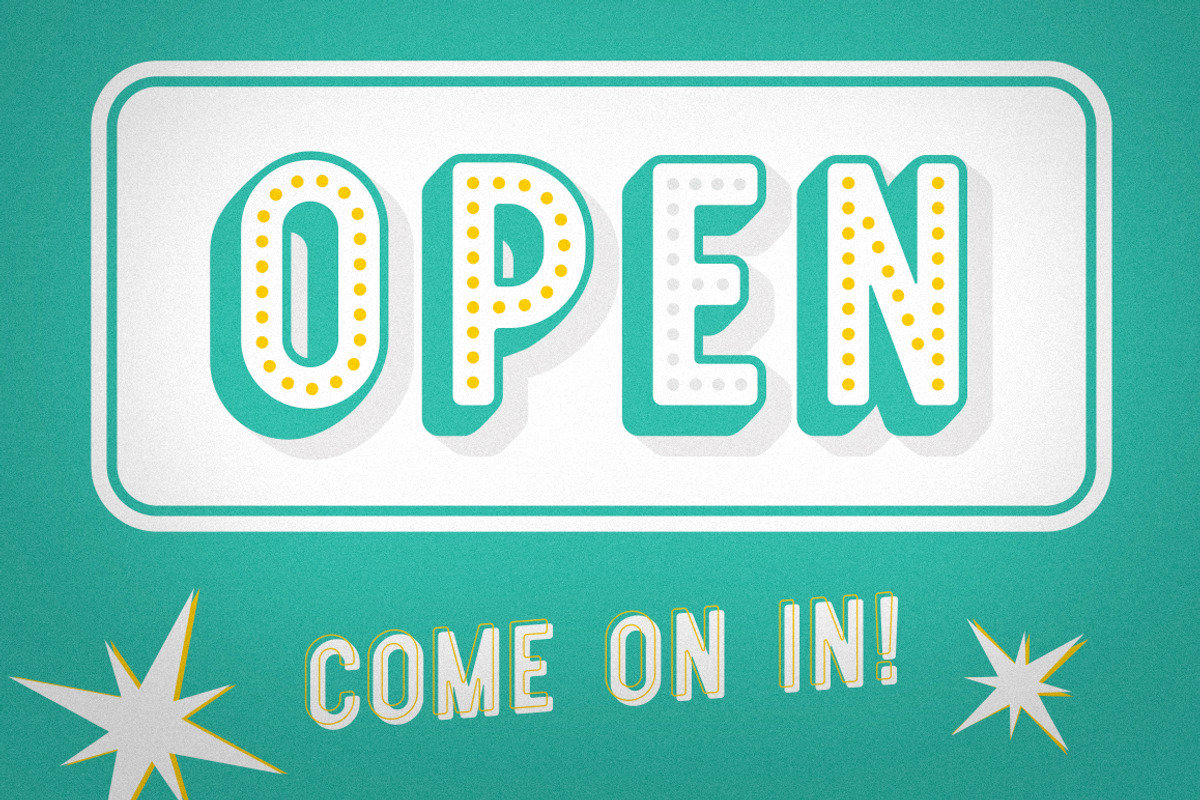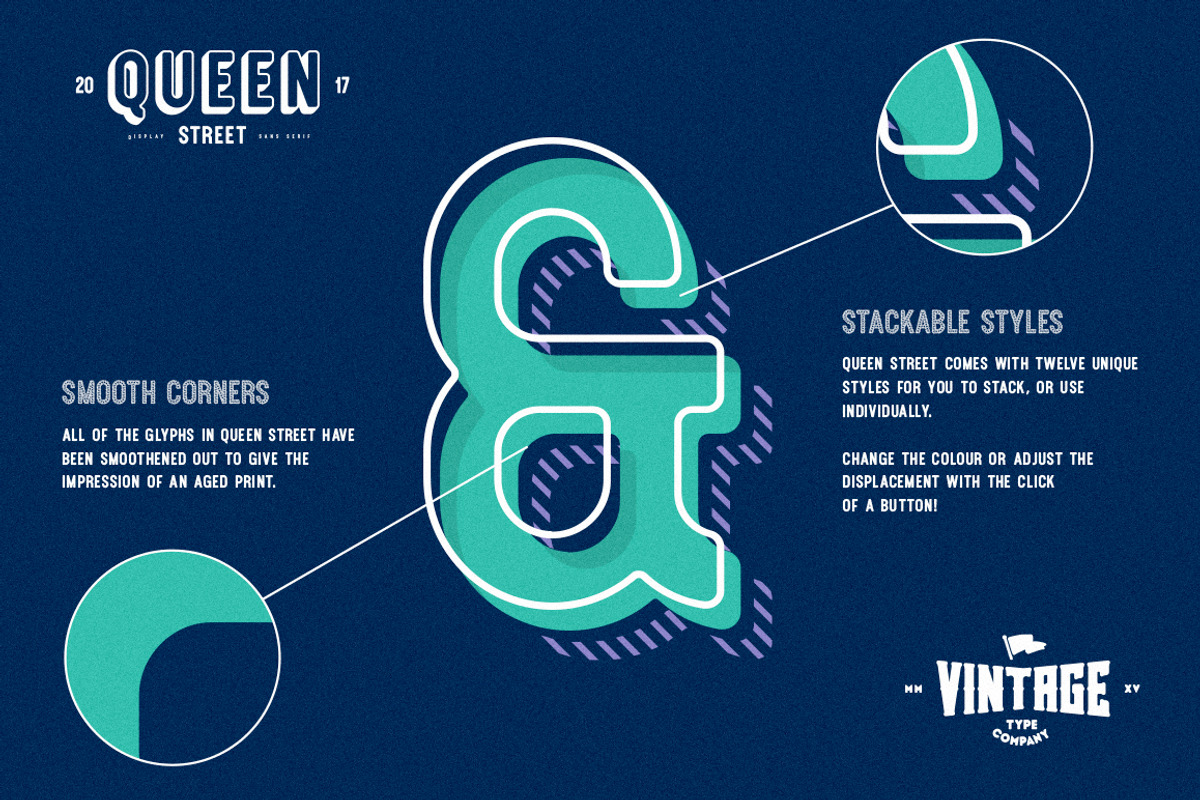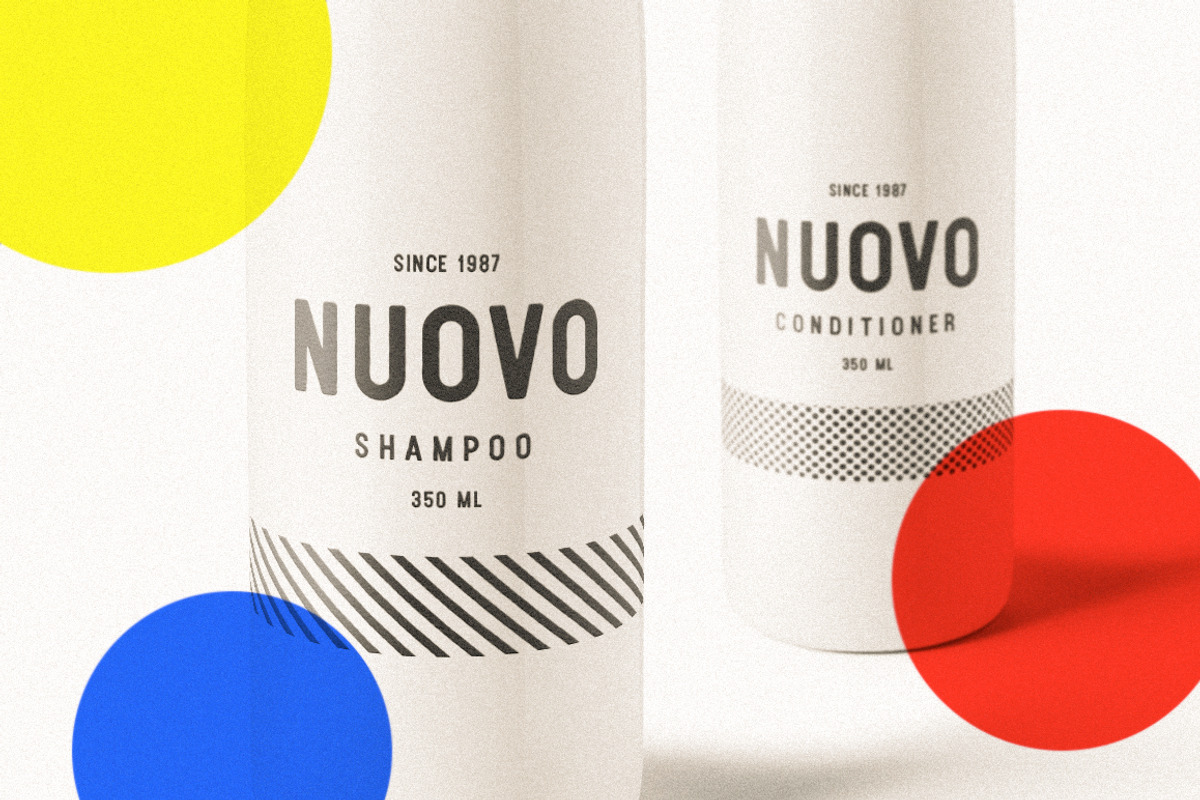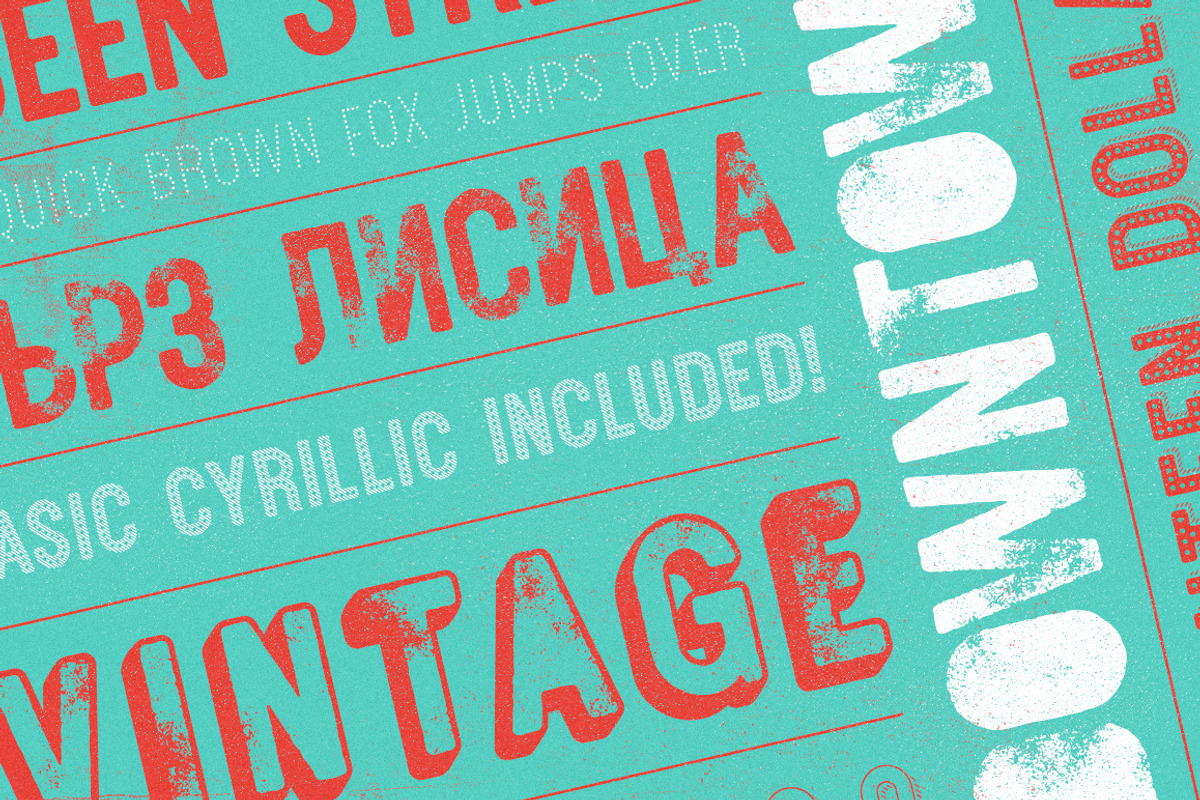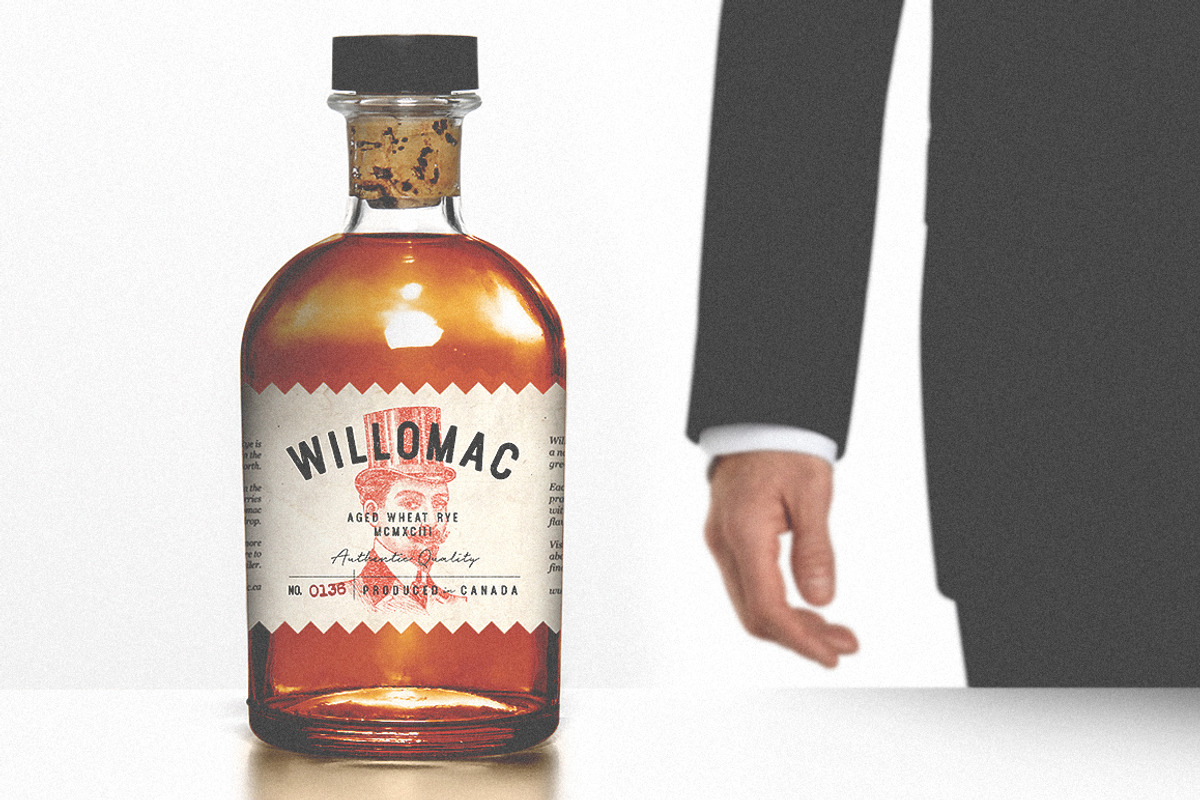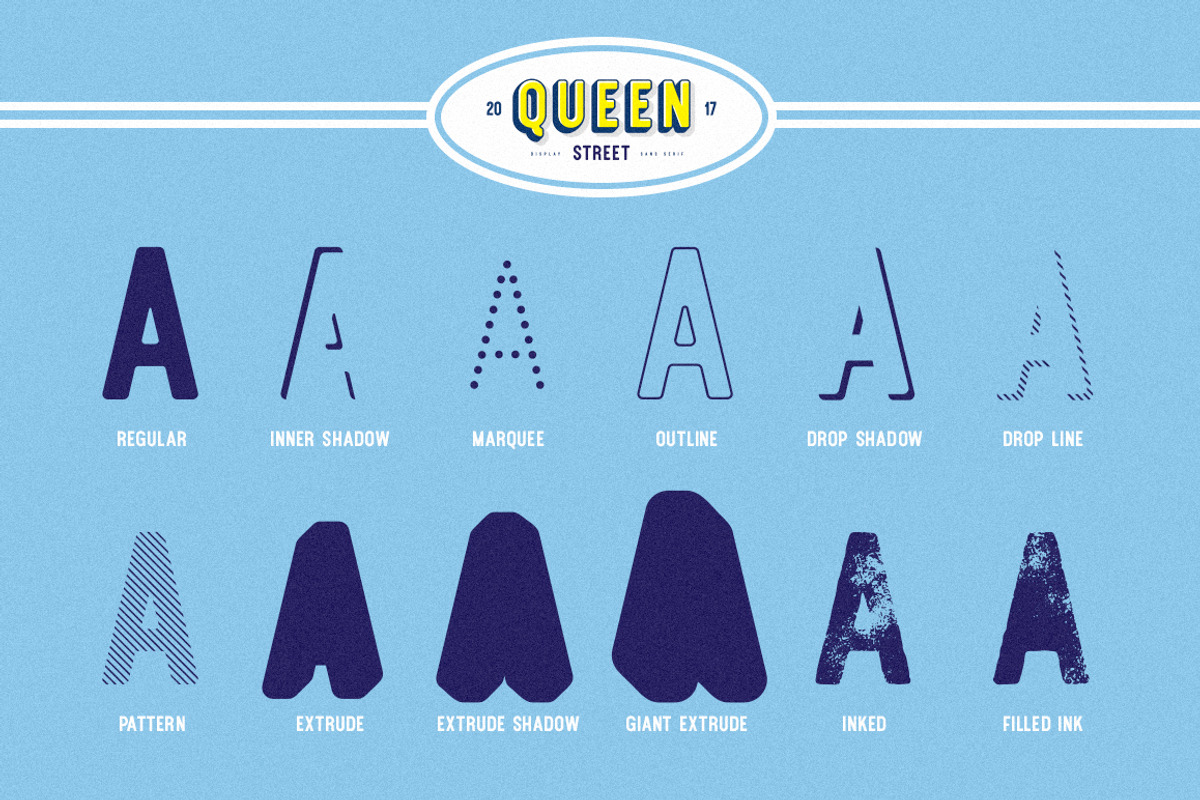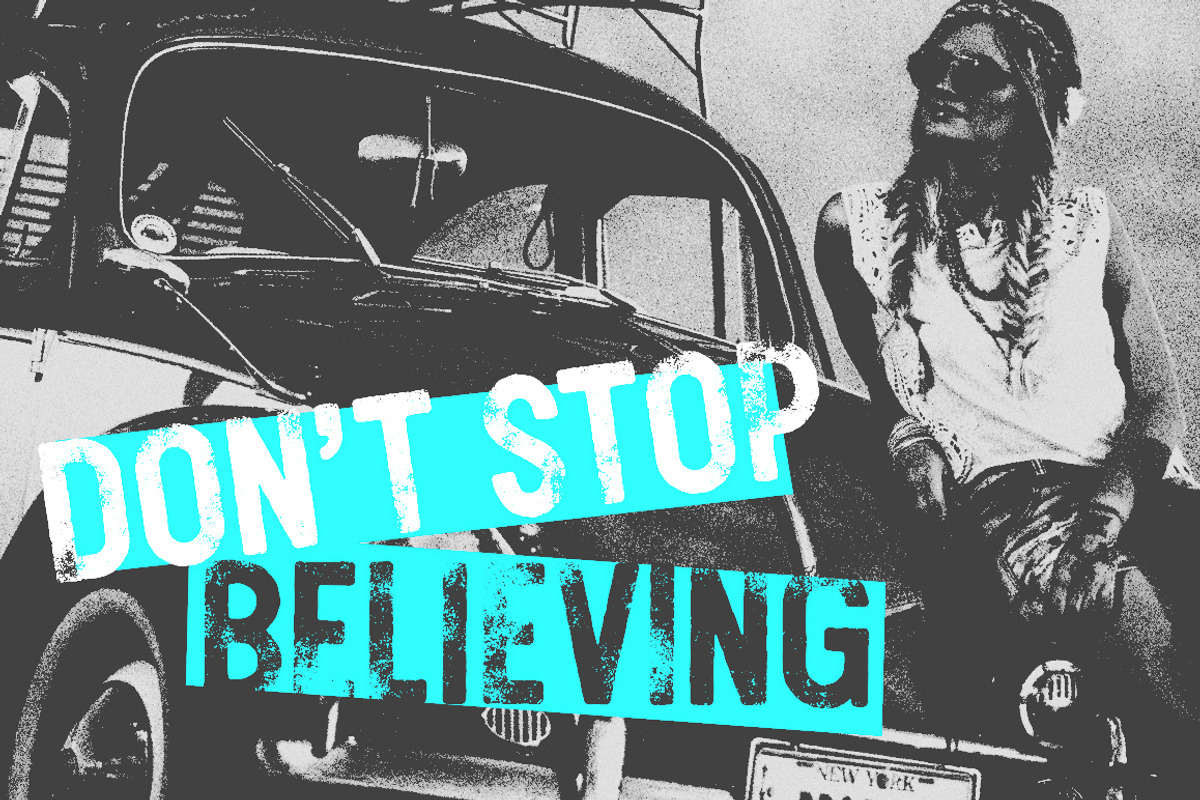
Queen Street Display Font
Queen Street Display Font by Vintage Type Company is a font selected for branding, posters, packaging, typography.
- Pay homage to simpler and less technological times with this stackable font that features multilingual support, with basic cyrillic included
Why Queen Street Display Font is worth a look
Queen Street Display Font by Vintage Type Company fits naturally into Branding, posters, packaging, typography.